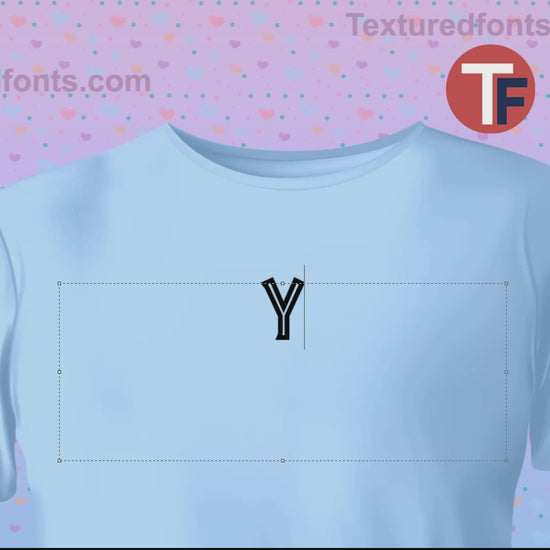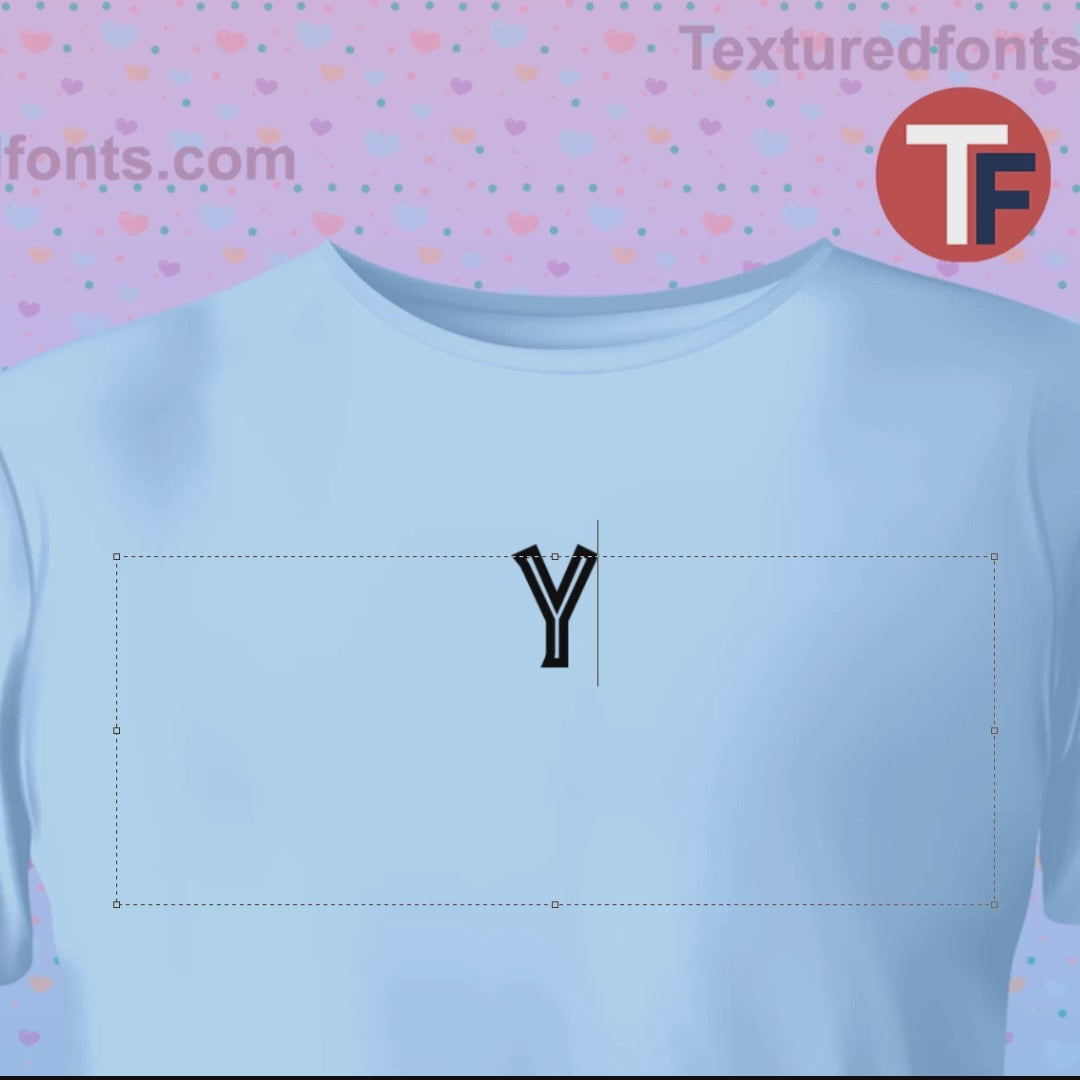
Mythic Hero Font
Unleash Heroic Elegance with the Mythic Hero Font
Step into the epic world of ancient mythology with our Mythic Hero font, designed to capture the grandeur and heroic spirit of legendary demigods. Ideal for projects that require a touch of classical strength and timelessness, this font embodies the boldness and dramatic flair of heroic adventures. Whether you're creating content for theatrical productions, designing thematic event invitations, or crafting powerful digital narratives, our Mythic Hero font ensures your projects resonate with the valor and epic scope of ancient myths.
The Mythic Hero font features robust, stately characters with sharp serifs and elegant curves that echo the art and architecture of ancient Greece. This font includes a comprehensive character set with uppercase and lowercase letters, numbers, and special symbols, enabling a broad range of applications:
- Literary Publications: Ideal for book covers, chapter titles, or content within historical and mythological texts.
- Event Branding: Create striking materials for themed parties, exhibitions, or cultural festivals.
- Educational Content: Enhance presentations or materials for history or literature classes.
- Digital Media: Use in video titles, social media posts, or promotional content for games and apps centered on mythology.
- Merchandise: Design merchandise like t-shirts, posters, and accessories that evoke the heroism of ancient legends.
Our Mythic Hero font not only pays homage to the iconic figures of Greek mythology but also empowers you to infuse your projects with the majesty and strength they embody. Whether for educational, commercial, or personal projects, this font lets you communicate with an authoritative and inspiring voice, bringing legendary tales to life in a modern context. Ready to make your designs legendary? Our Mythic Hero font is here to help you achieve that heroic impact.